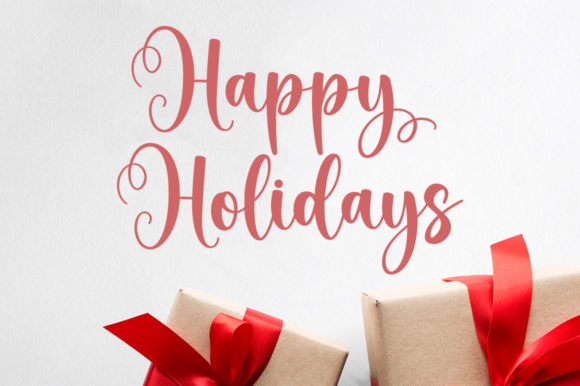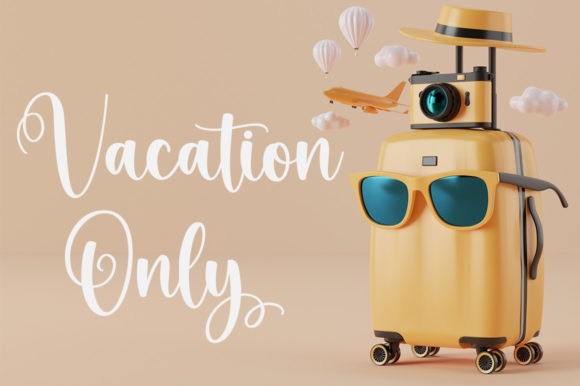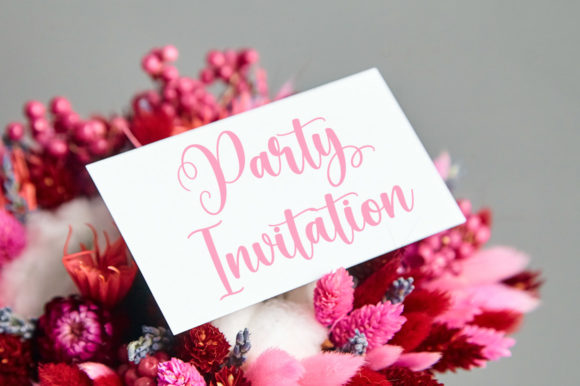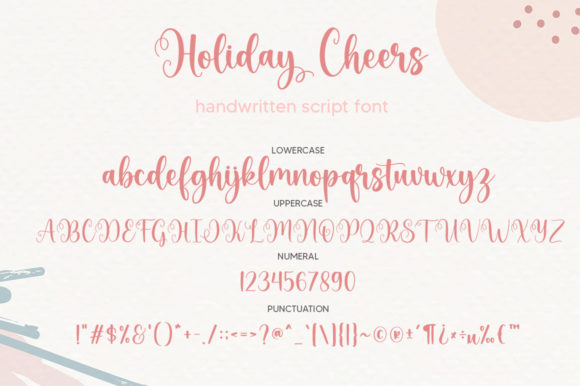
Unlock the Magic of the Holiday Season with Holiday Cheers Font
As the snowflakes start to fall and the fireplace crackles to life, you can’t help but feel a surge of creativity. You’ve got a holiday card to design, a gift tag to craft, or a festive social media post to create. Whatever your project, you want it to shine with the same warmth and joy that the season brings. That’s where Holiday Cheers Font comes in – a delicate, elegant, and flowing handwritten font that’s the perfect accompaniment to your most creative ideas.
This beautifully balanced font is a valuable addition to any designer’s toolkit. Its versatility means it can be used across a wide range of projects, from elegant wedding invitations to playful holiday party decorations. Whether you’re a seasoned pro or a DIY enthusiast, the Holiday Cheers Font is sure to bring your designs to life and make the holiday season a little brighter.
Holiday Cheers Font Key Features
- Font Family: Holiday Cheers Font is a unique, hand-drawn font family designed for festive and holiday-themed applications.
- Character Set: Includes a comprehensive set of characters, including uppercase and lowercase letters, numbers, punctuation, and special characters.
- Unique Characteristics: Features a distinctive, hand-drawn style with a warm and festive feel, making it perfect for holiday-themed projects, such as greeting cards, party invitations, and advertising materials.
Designer Review: Holiday Cheers Font
Overall, I think the Holiday Cheers Font is a fun and festive addition to any holiday design project. Here are some things that work well: ✨
- It’s perfect for creating a cheerful atmosphere, especially during Christmas and New Year’s.
- The font is bold and playful, making it ideal for headlines and titles.
- The included characters, such as ornaments and snowflakes, add a nice touch to the font’s festive feel.
- The font may be too loud or overwhelming for more subtle design projects.
- The ornament and snowflake characters may not be suitable for all design contexts, such as corporate branding or formal invitations.
- The font’s playfulness may not be to everyone’s taste, and some users may find it too cliche or overused.
Overall, I think the Holiday Cheers Font is a great choice for designers who want to add some festive flair to their projects. Just be sure to use it in moderation and consider the context in which it will be used.
For the most out of the Holiday Cheers Font, use it for festive and holiday-themed designs. Some common use cases include:
– Creating invitations and greeting cards for Christmas, New Year’s Eve, or other winter holidays.
– Designing social media graphics and posters for holiday promotions.
– Creating custom gift tags and wrapping paper.